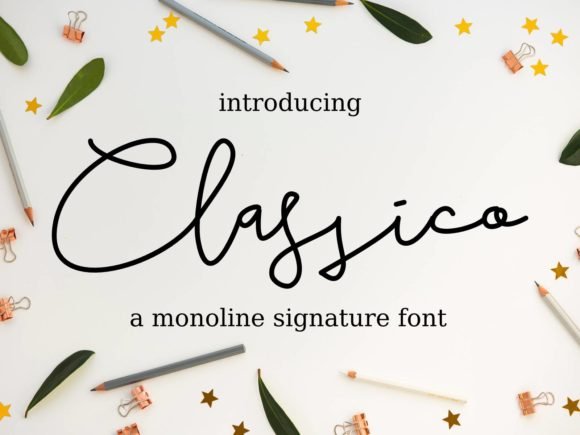
Discover the Timeless Charm of Classico Font
Have you ever found yourself staring at a blank canvas, waiting for inspiration to strike? The blank page can be daunting, but sometimes all it takes is a single font to spark a creative idea. For designers and artists, the right font can be the key to unlocking a unique visual identity.
Introducing the Classico Font, a sophisticated monoline script font that exudes modern elegance. This stylish font is perfect for designers looking to add a touch of refinement to their work. Whether you’re creating a wedding invitation, a logo, or a branding package, the Classico Font is sure to make a lasting impression.
What sets the Classico Font apart is its timeless appeal. Its unique design is both classic and modern, making it a valuable addition to any designer’s toolkit. With the Classico Font, you’ll be able to create designs that are both stylish and enduring.
Classico Font Key Features
- Font Family: Classico, Classico Italic, Classico Bold, Classico Bold Italic
- Unique Characteristics: Elegant, cursive script with a vintage feel, ideal for wedding invitations, greeting cards, and other formal events
Classico Font Review
At first glance, the Classico font seems to have a lot going for it. ✨ Its elegant, vintage vibe immediately catches the eye, and it’s clear that it’s been designed with care. The subtle flair at the ends of the letters adds a touch of sophistication that’s hard to find in more modern fonts.
However, there are a few limitations to consider. ⚠️ For one thing, the font may be a bit too ornate for some projects. The intricate details can make it difficult to read at smaller sizes, and it may not be the best choice for body text or long blocks of copy. Additionally, the font’s vintage feel may make it feel a bit dated in certain contexts.
That being said, I think the Classico font is still a great choice for certain projects. It’s perfect for adding a touch of elegance to a logo or title, or for creating a distinctive look for a brochure or other print material.
Overall, I’d give the Classico font 4 out of 5 stars. It’s a beautiful font with a lot of character, but it may not be the best choice for every project.
- ✨ Elegant, vintage vibe
- ✨ Perfect for logos, titles, and print materials
- ⚠️ May be too ornate for body text or long blocks of copy
- ⚠️ May feel dated in certain contexts
Tips for Getting the Most Out of Classico Font
For the best results, use the Classico font in conjunction with other classic, elegant fonts to create a cohesive and sophisticated design.
Experiment with different font sizes and styles to create visual interest and emphasis in your design.
The Classico font is ideal for use in designs that require a classic, elegant look, such as:
Business cards and marketing materials
Editorial and publishing designs
Alternatives to Classico Font
Classico Font is a serif font known for its elegant and classic feel. However, designers may need alternatives for various projects. Here are a few options.
Playfair Display is a high-end serif font with a luxurious feel. It’s ideal for creating a sophisticated and elegant look in headings and titles. It has a more ornate and decorative feel compared to Classico Font, making it suitable for high-end branding, luxury goods, and premium publications.
Merriweather is a classic serif font with a traditional feel. It’s suitable for body text and is often used in academic and professional settings. Compared to Classico Font, Merriweather is more straightforward and less ornate, making it a great choice for projects where a clean and readable font is necessary.